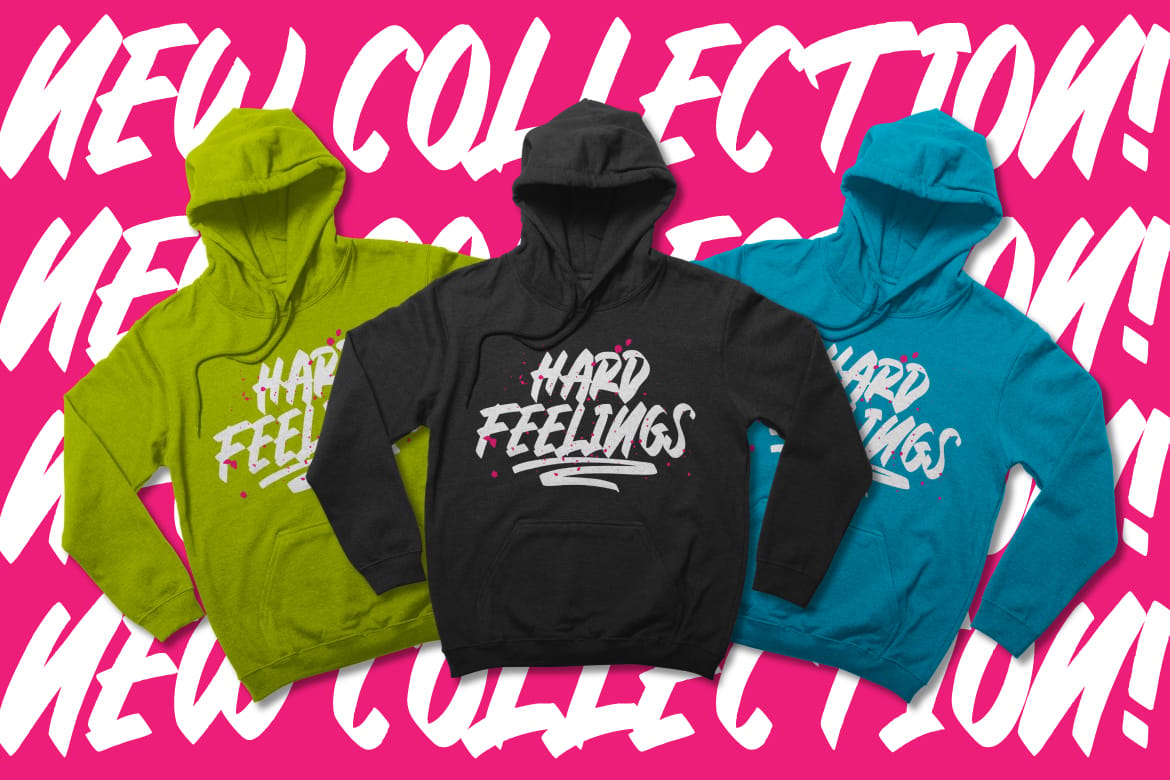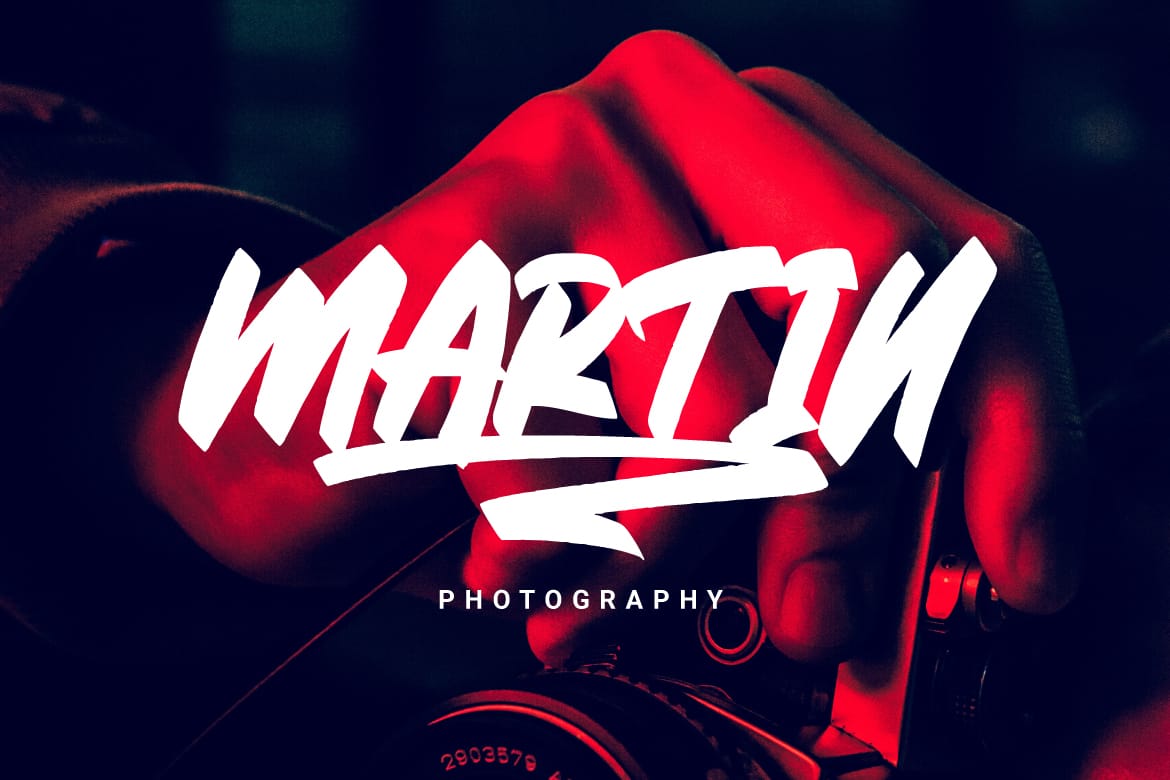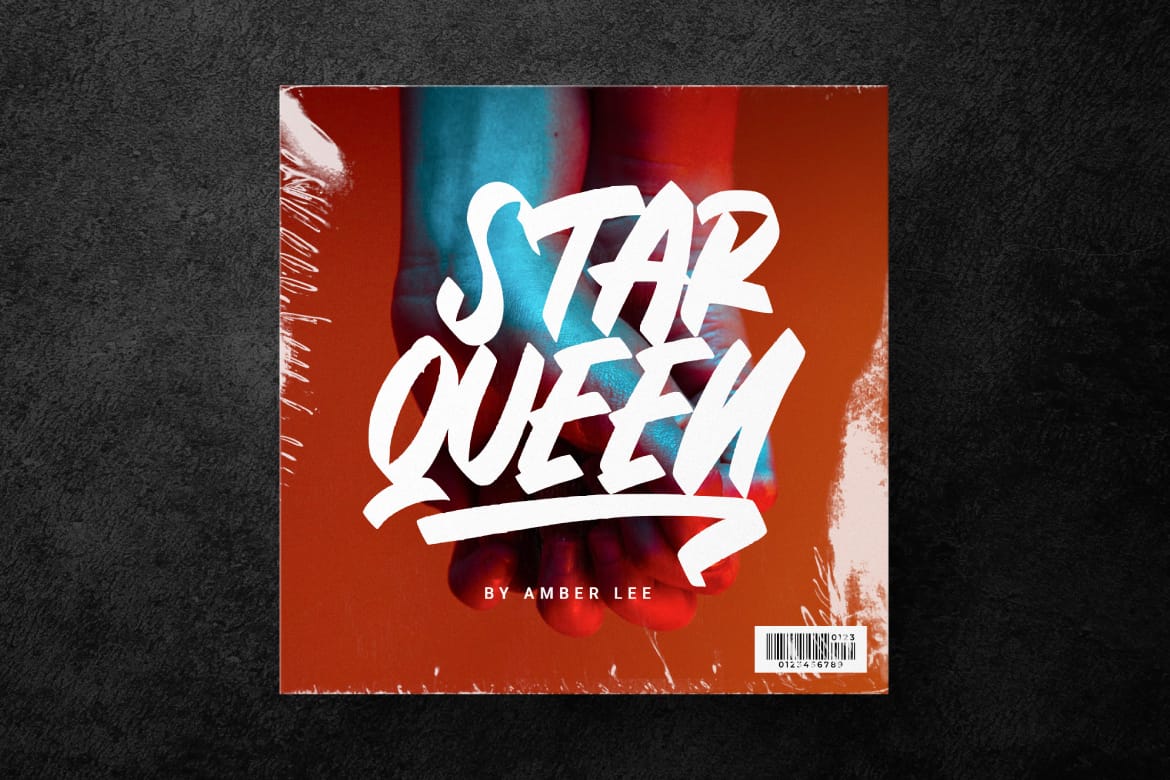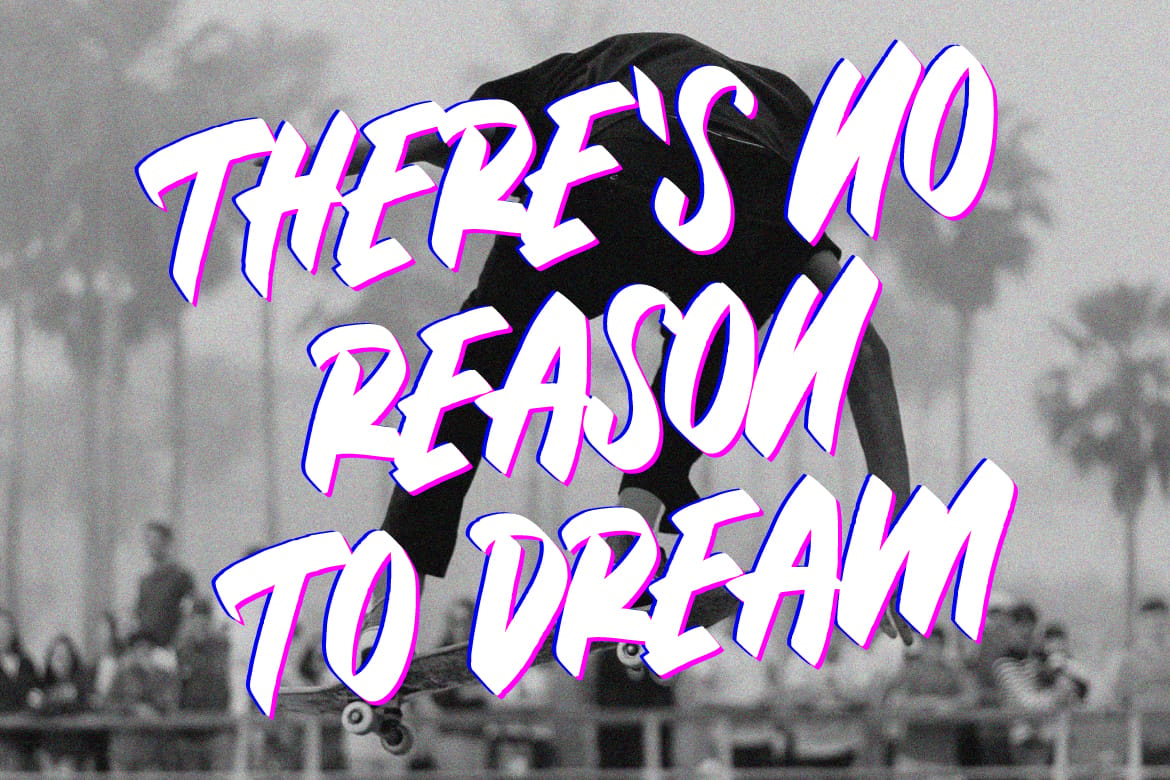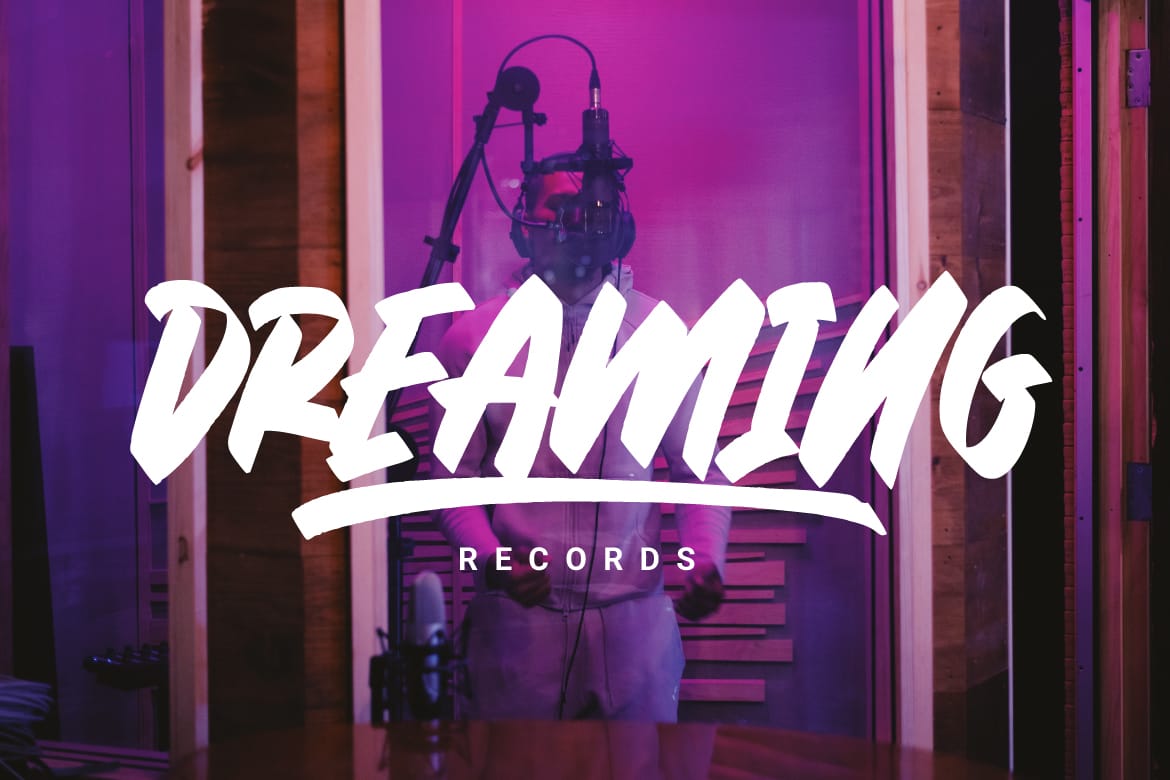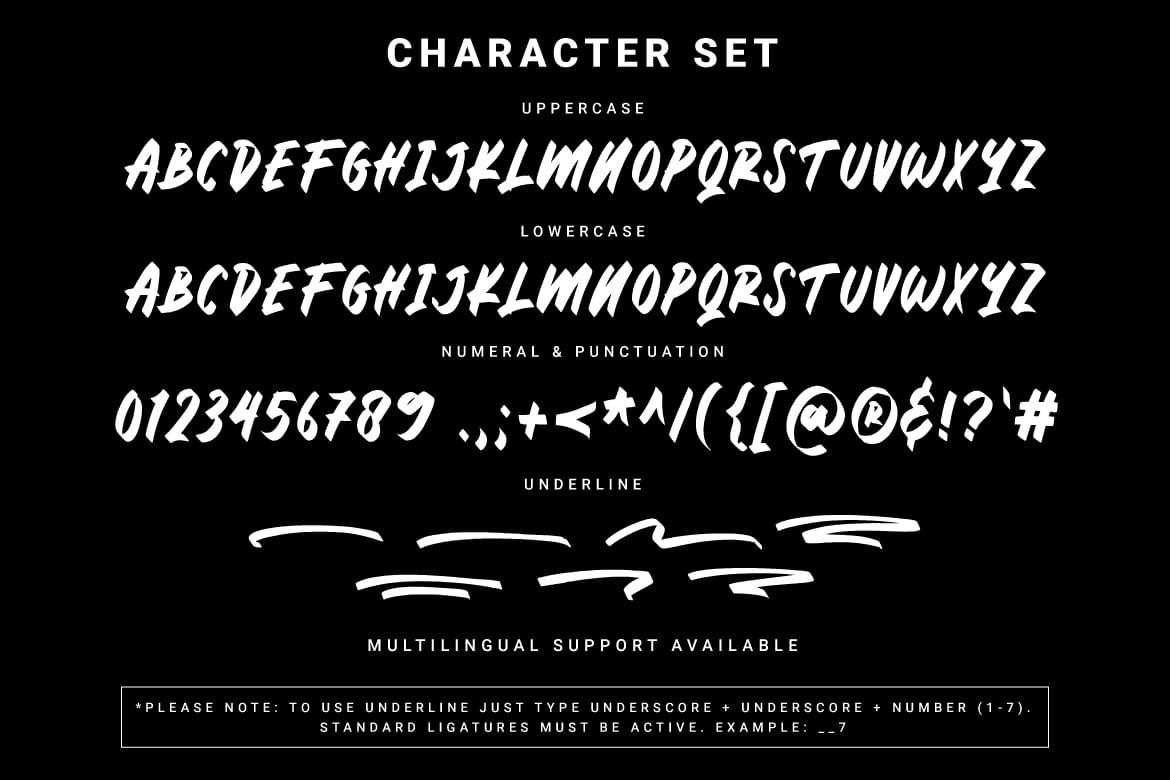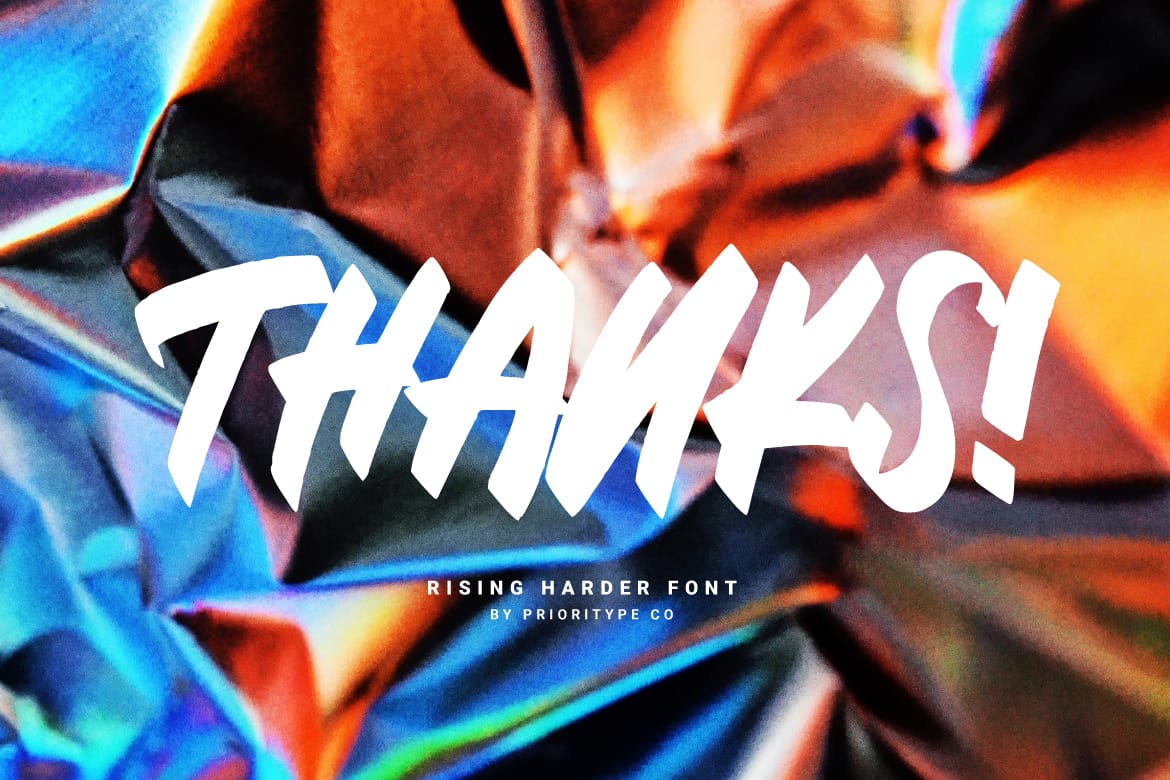
Rising Harder - Brush Font.
Rising Harder is a handwritten brush font. This is an all caps font. Looks strong and stylish. Great for merchandise designs, logos, posters, covers and more.
Features: Uppercase, Lowercase, Numeral, Punctuation, Multilingual & Underline.